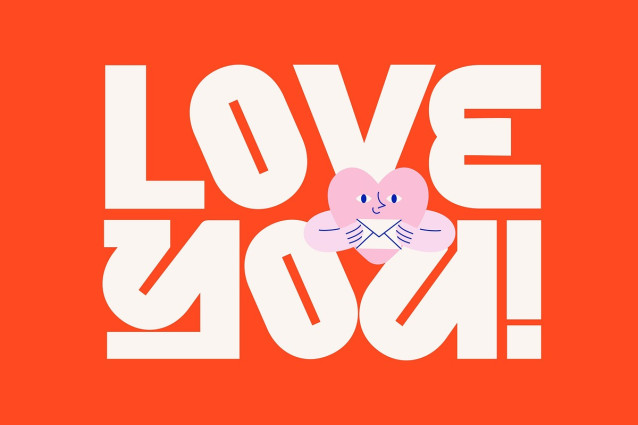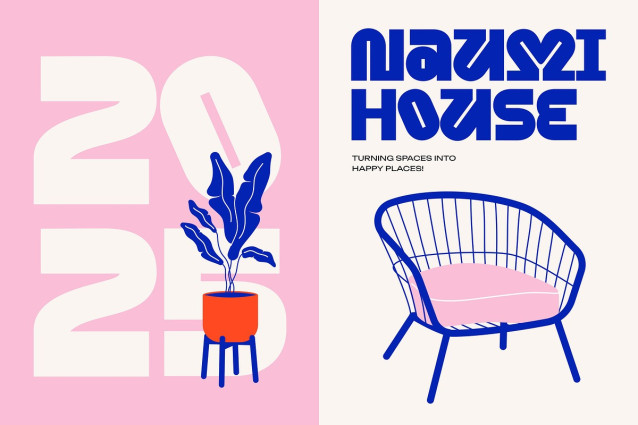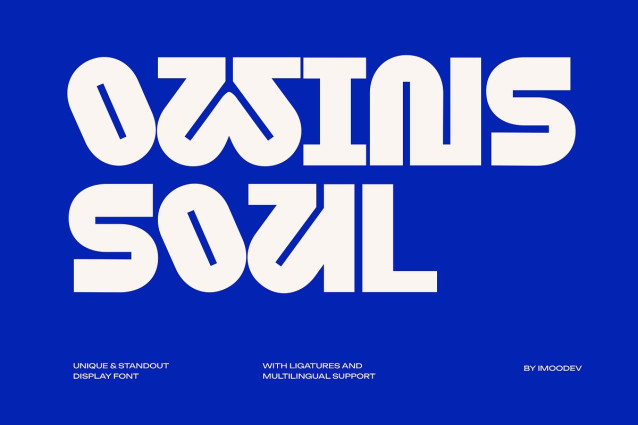
Owine Soul Font
Owins Soul Font is a bold and modern display typeface with a geometric and slightly retro aesthetic. It is a highly stylized and unique font designed to stand out.
With its thick strokes, consistent weights, and modular construction, this typeface boasts a distinctive and visually striking appearance.
The font conveys a sense of energy and playfulness, making it ideal for impactful visual applications such as posters, banners, headlines, branding, social media graphics, modern interior designs, logotypes, motion graphics, visual identity design, product mockup, sticker, sweet designs, merchandise, and packaging.